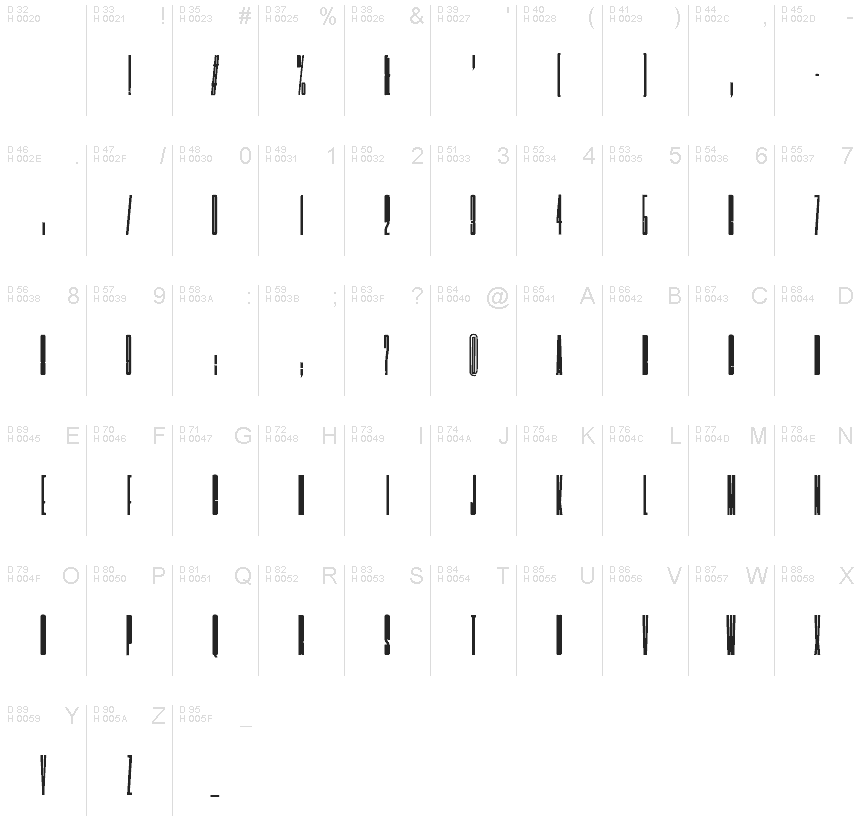
Elong Max Low
Elong Max Low font by Elong Max is an unusual sans serif font whose presence resembles a barcode. Its condensed silhouette and extreme length result in destructive writing that’ll leave the viewers wondering about what has been written. The family includes a high and regular version for maximum creative use.
Get creative on posters, banners, editorial publications, headlines, magazine covers, album covers, social media posts, marketing material for newer brands or ones seeking rebranding.